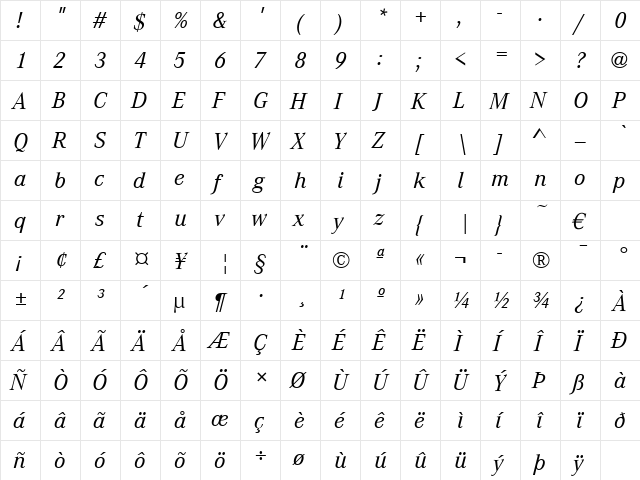
CorpoA Italic
Design Context for CorpoA Typeface
CorpoA is a composed and adaptable typeface that performs quietly and consistently across a wide range of design contexts. The dynamic lean of this cut emphasises speed and emphasis in any layout.
Pro Tip: Try CorpoA for annotation and caption copy alongside an upright companion — the contrast in angle creates a dynamic but ordered typographic system.